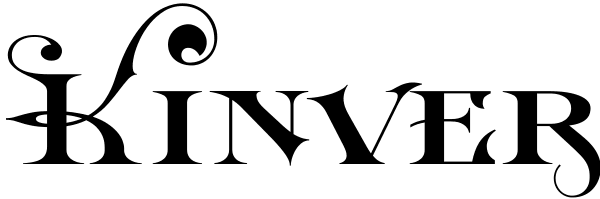
Kinver
Kinver owes it’s inspiration to the masthead of a 19th century handbill. It is designed to particularly complement our extensive ‘Imperial Granum’ typeface family. Bring the spirit of Victorian flair to your next design project!